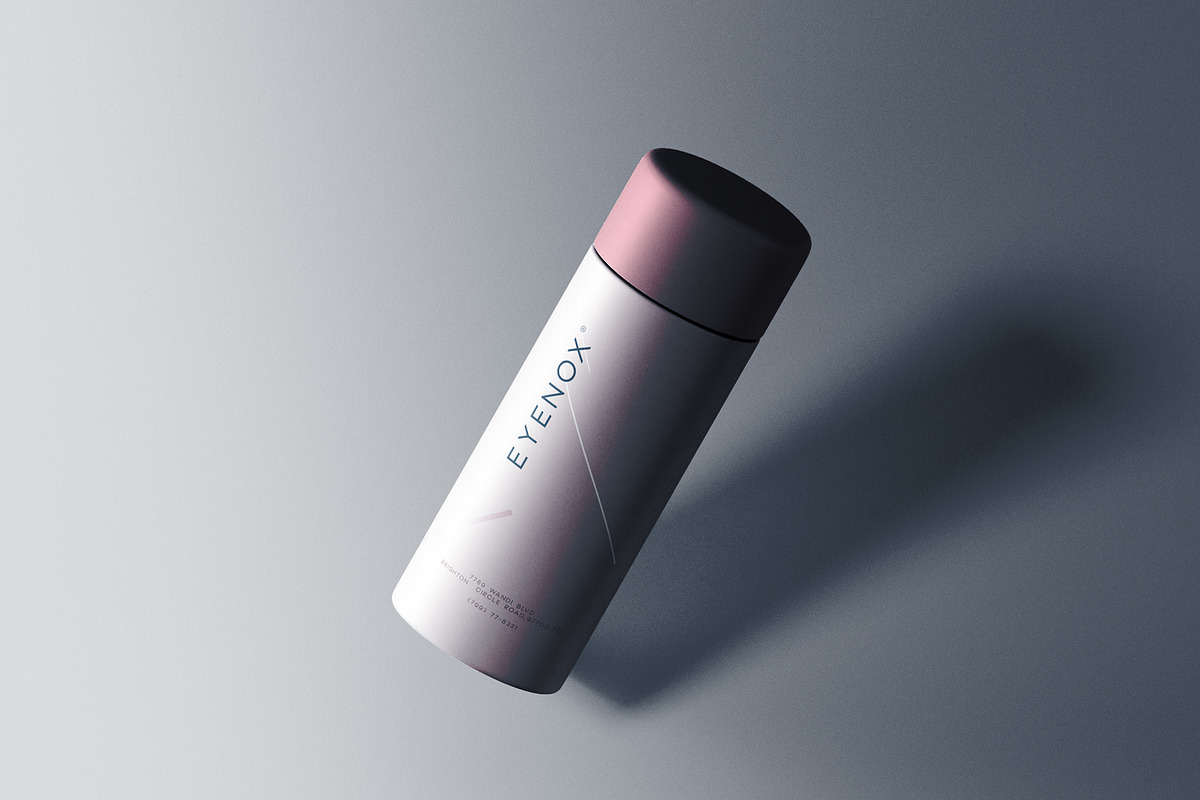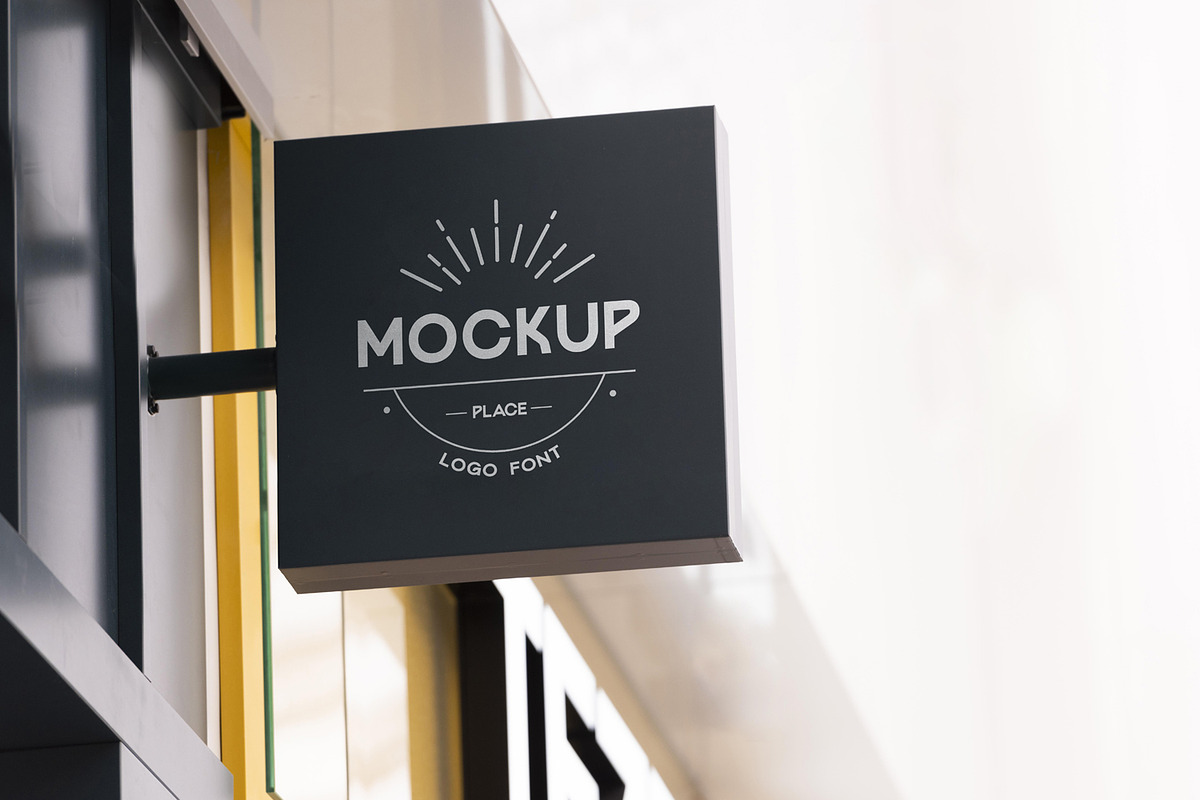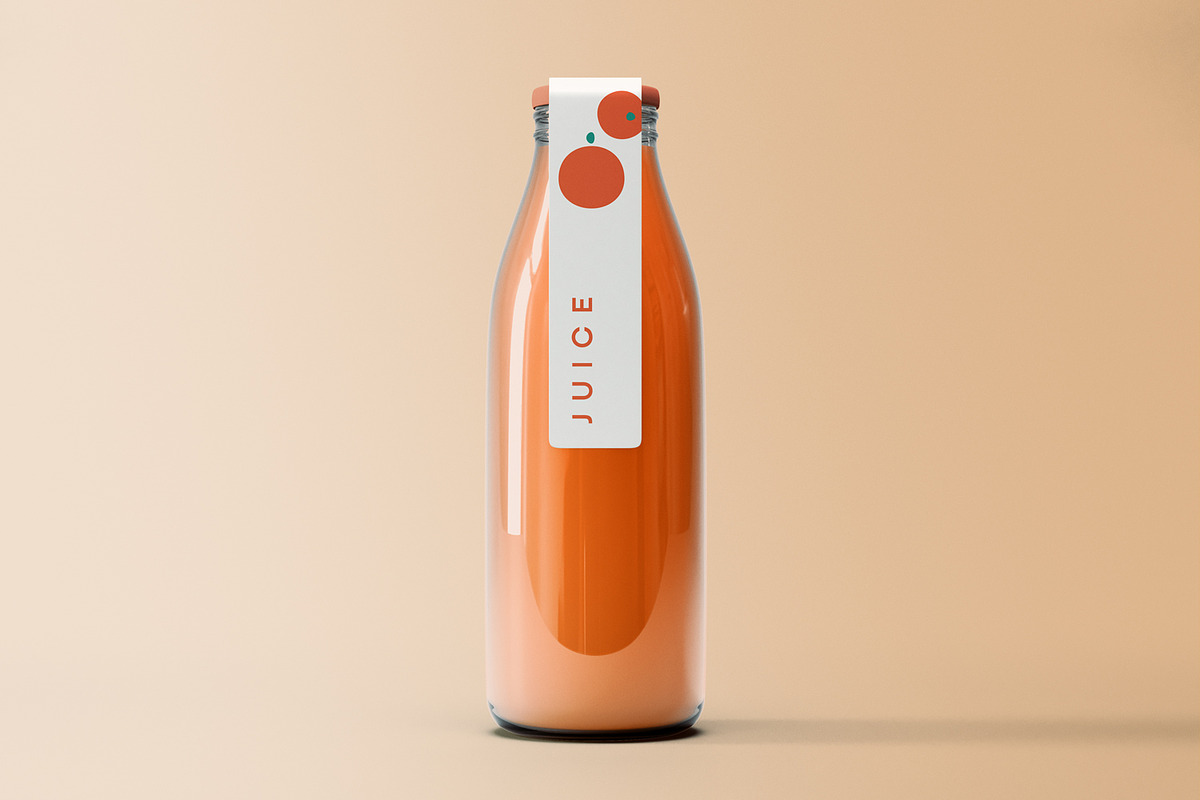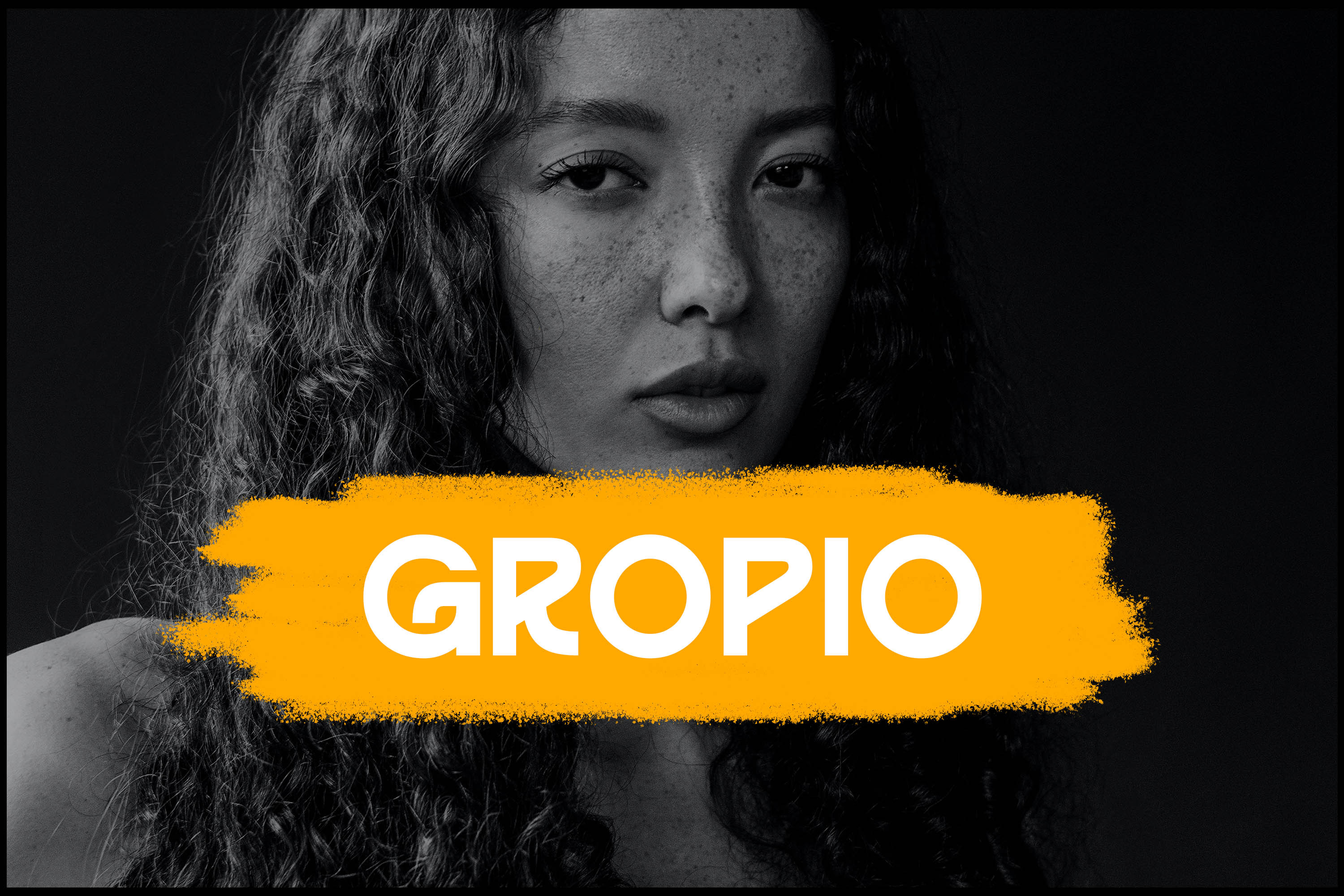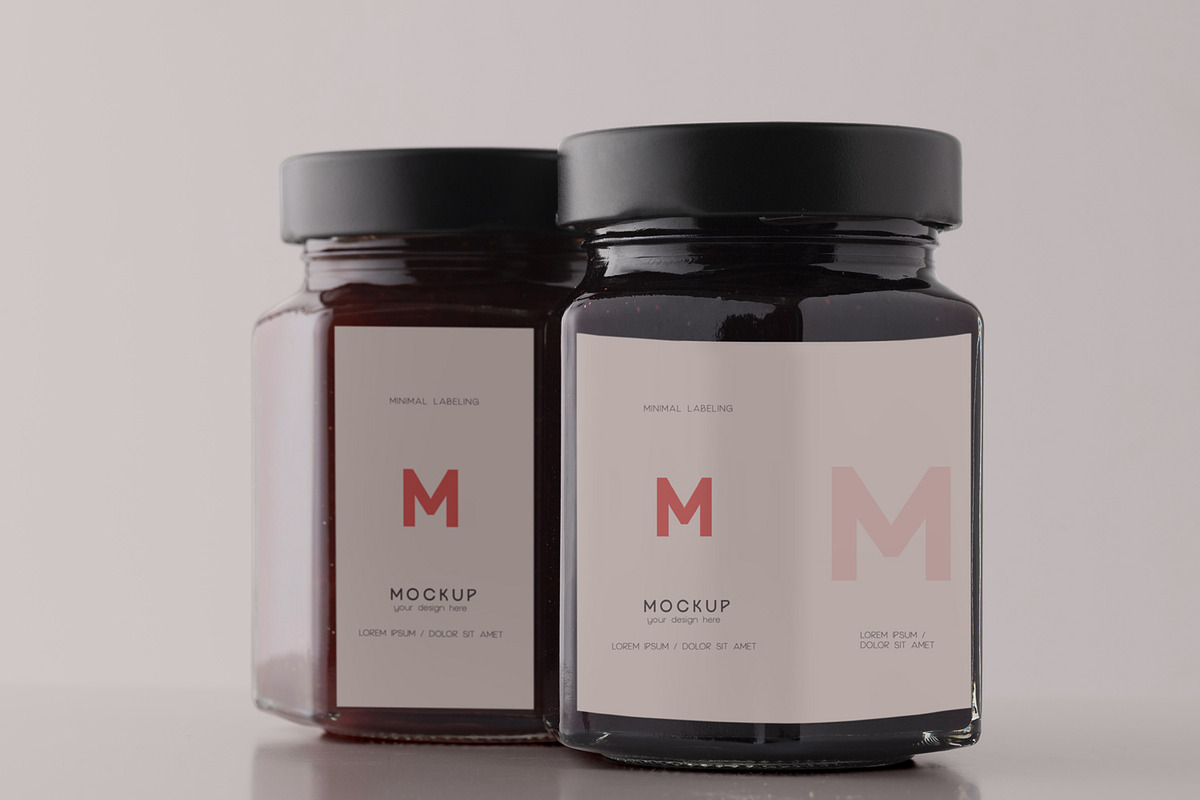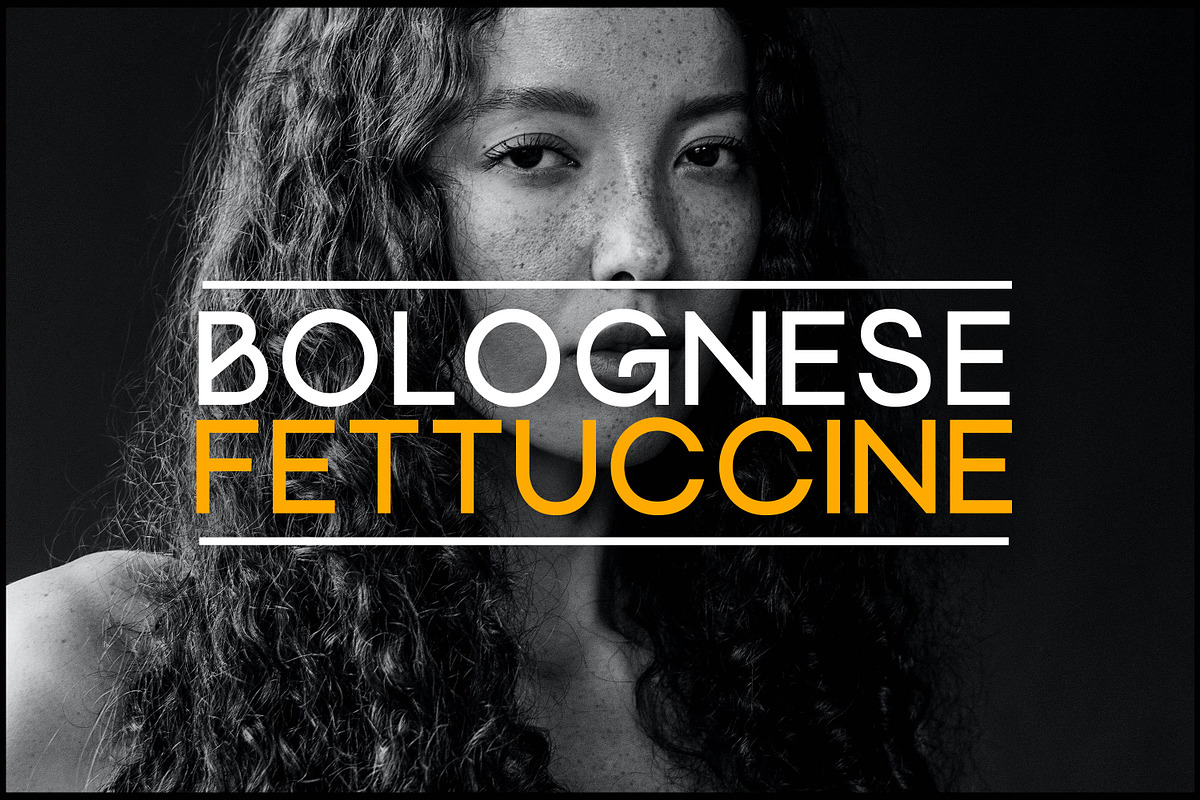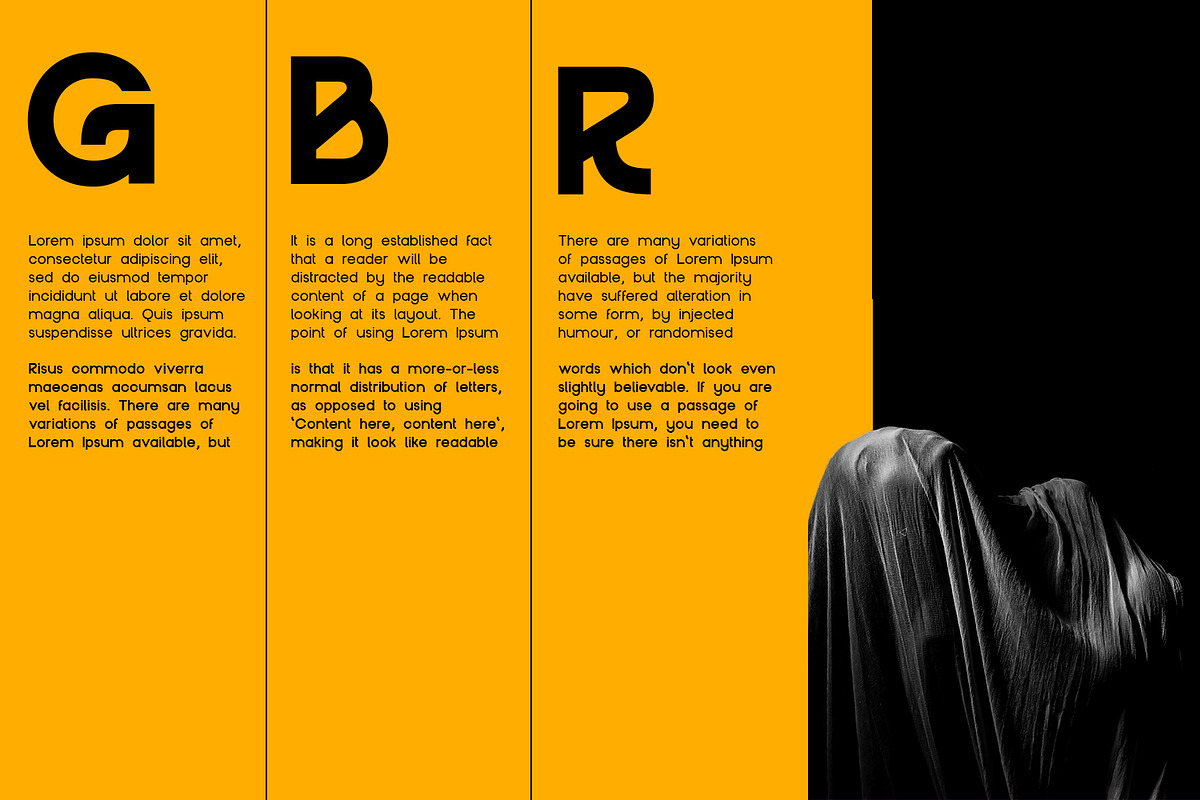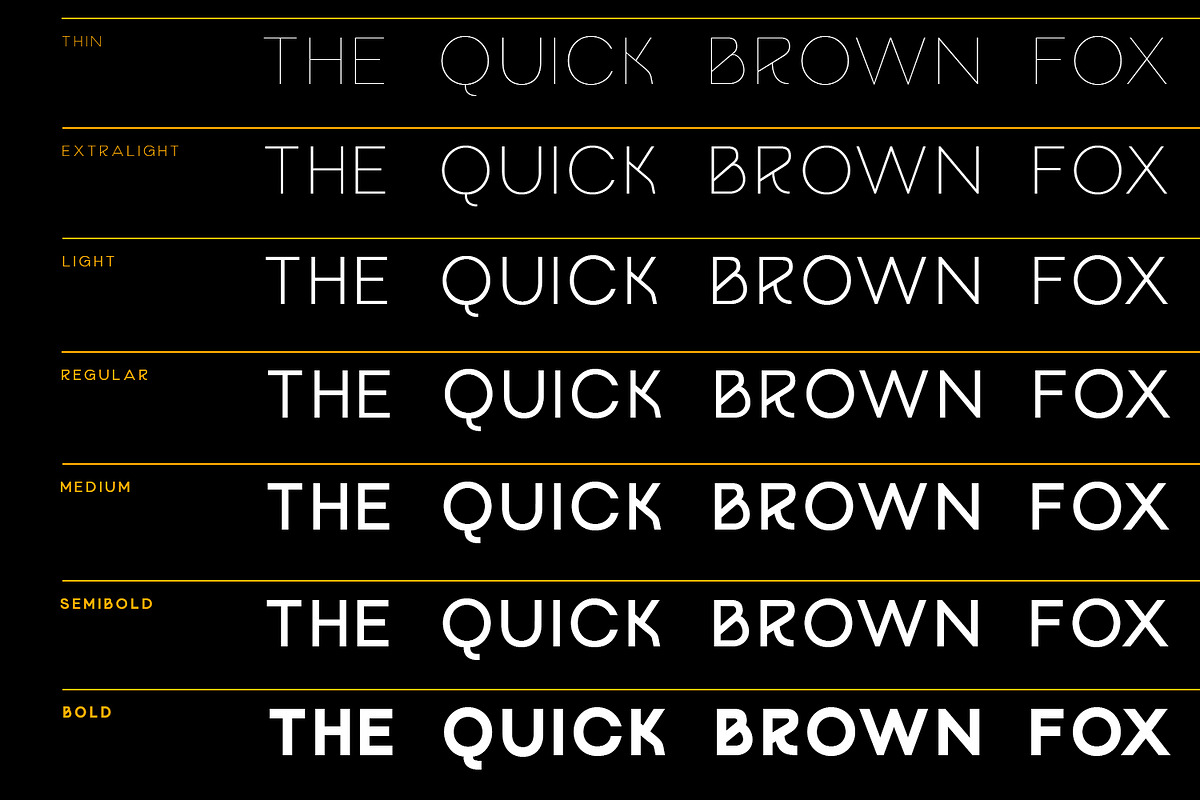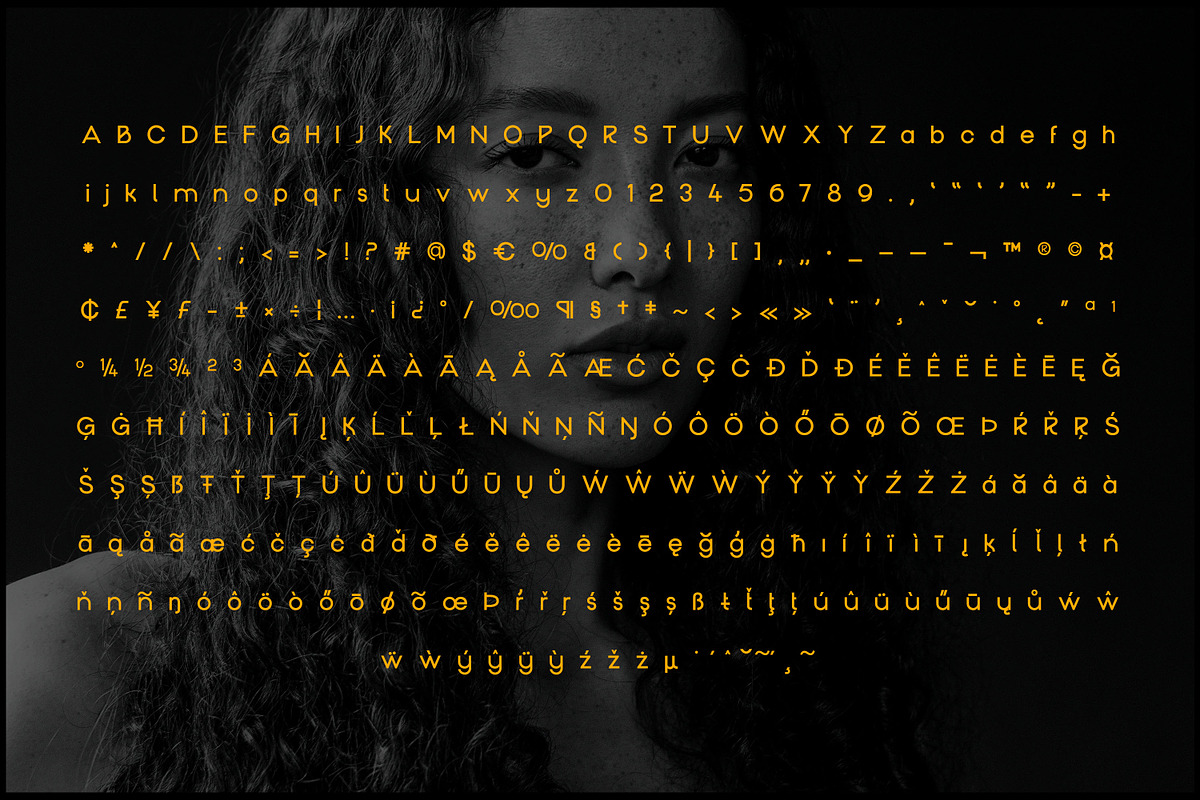
Gropio Typeface
Gropio is a unique and modern sans serif font, perfect for headlines, big text, branding, logotypes & display usage. The typeface will add a neat and sleek accent to each of your beautiful crafty ideas! It has dependable and uncompromising style, with the controlled letter forms and modern touches, experienced through sophisticated touches and controlled letter forms. There's a good mix of strong lines and smooth curves. Each font in the family can be used independent, and each is lively and authoritative in its own right.
The various weights allow you to experiment with a wide range of applications, while the outlined typefaces offer any project a truly modern vibe.
07 weights included.